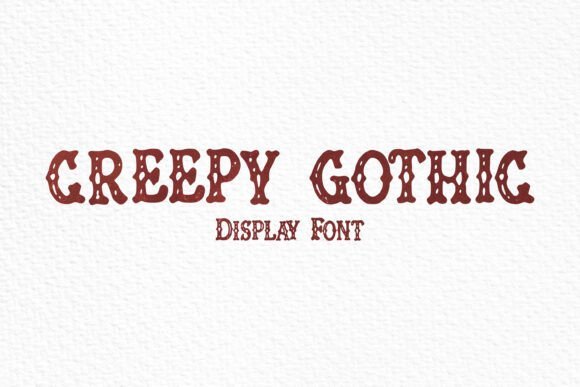
Bring Your Creepy Gothic Dreams to Life
Do you remember that moment when a spark of creativity hit you, and you knew exactly what you wanted to create? The ideas were flowing, and your imagination was running wild. For designers, this feeling is a common occurrence, but what if you had the perfect tool to bring those ideas to life?
Introducing the Creepy Gothic Font, a captivating and versatile font designed to complement a wide range of creative projects. This font is the perfect companion for designers seeking elegance, modernity, playfulness, or a bold statement. With its unique and polished touch, the Creepy Gothic Font enhances your designs and adapts effortlessly to your vision.
Whether you’re working on branding, book covers, posters, packaging, or merchandise, the Creepy Gothic Font is a valuable asset for designers. Its adaptability and versatility make it a must-have for anyone looking to elevate their designs and bring their creative vision to life.
Key Features of Creepy Gothic Font
- Font Family: Gothic-inspired, with a dark and mysterious aesthetic
- Character Set: Includes a wide range of characters, including Latin, Cyrillic, and Greek alphabets, as well as punctuation and symbols
- Unique Characteristics: Distinctive Gothic-inspired letterforms, ornate details, and subtle texture effects create a haunting and atmospheric feel
Designer Review: Creepy Gothic Font
Overall, I’d say the Creepy Gothic Font is a solid choice for those looking to add a touch of darkness and mystery to their designs. Here are some things that work well:
- ✨ The font’s bold, gothic-inspired lines add a sense of drama and foreboding, perfect for horror-themed projects or those with a darker aesthetic.
- ✨ The font’s unique letterforms and flourishes make it stand out from more generic gothic fonts, adding a touch of personality to your designs.
- ✨ The font’s weight and contrast make it easy to read, even at smaller font sizes.
- ⚠️ The font’s design can feel a bit over-the-top or kitschy, which may not be to everyone’s taste.
- ⚠️ Some of the letterforms can be a bit awkward or hard to read, particularly at smaller font sizes.
- ⚠️ The font may not be suitable for projects that require a more subtle or understated approach.
Overall, I’d recommend the Creepy Gothic Font for projects that require a bold, dramatic, or mysterious feel. While it may not be the best choice for every project, it’s definitely a unique and eye-catching option to consider.
Tips for Getting the Most Out of the Creepy Gothic Font
Here are a few tips for getting the most out of the Creepy Gothic Font:
- Use it sparingly to create a dramatic effect.
- Pair it with other fonts to create a unique and eye-catching design.
- Experiment with different font sizes and styles to achieve the desired effect.
The Creepy Gothic Font is commonly used in the following contexts: